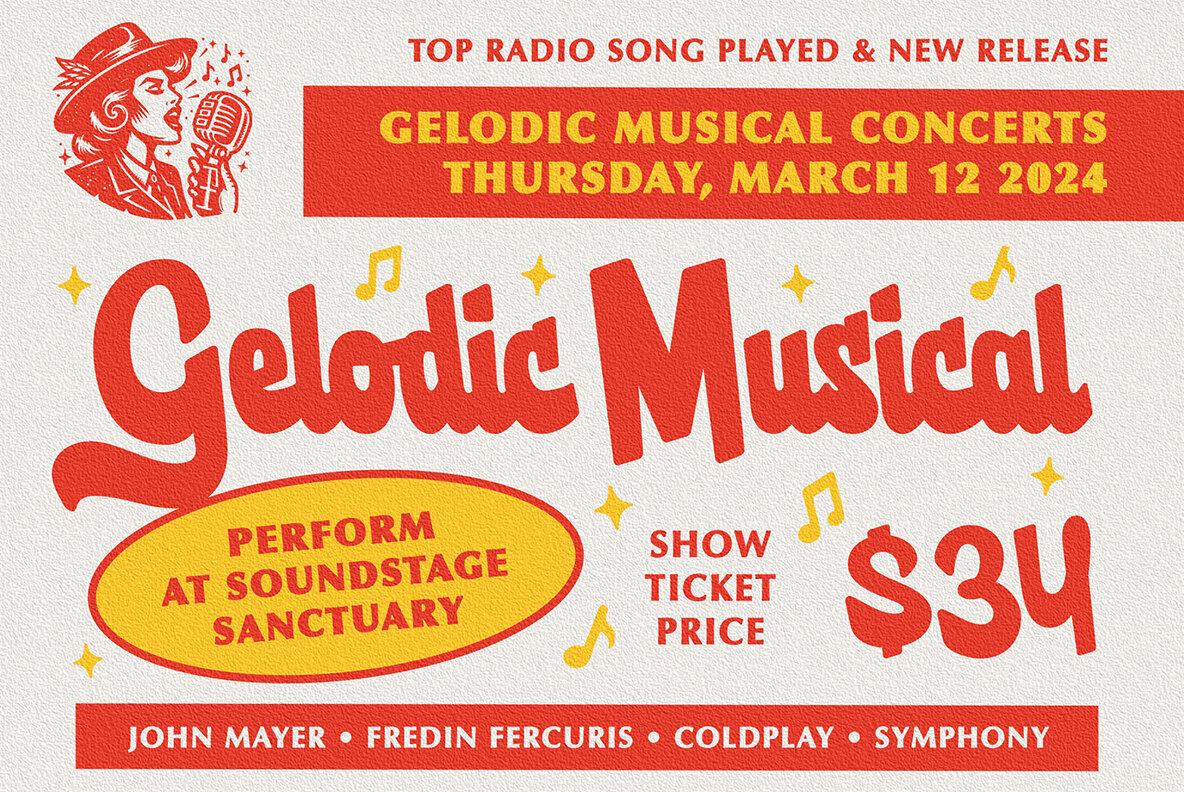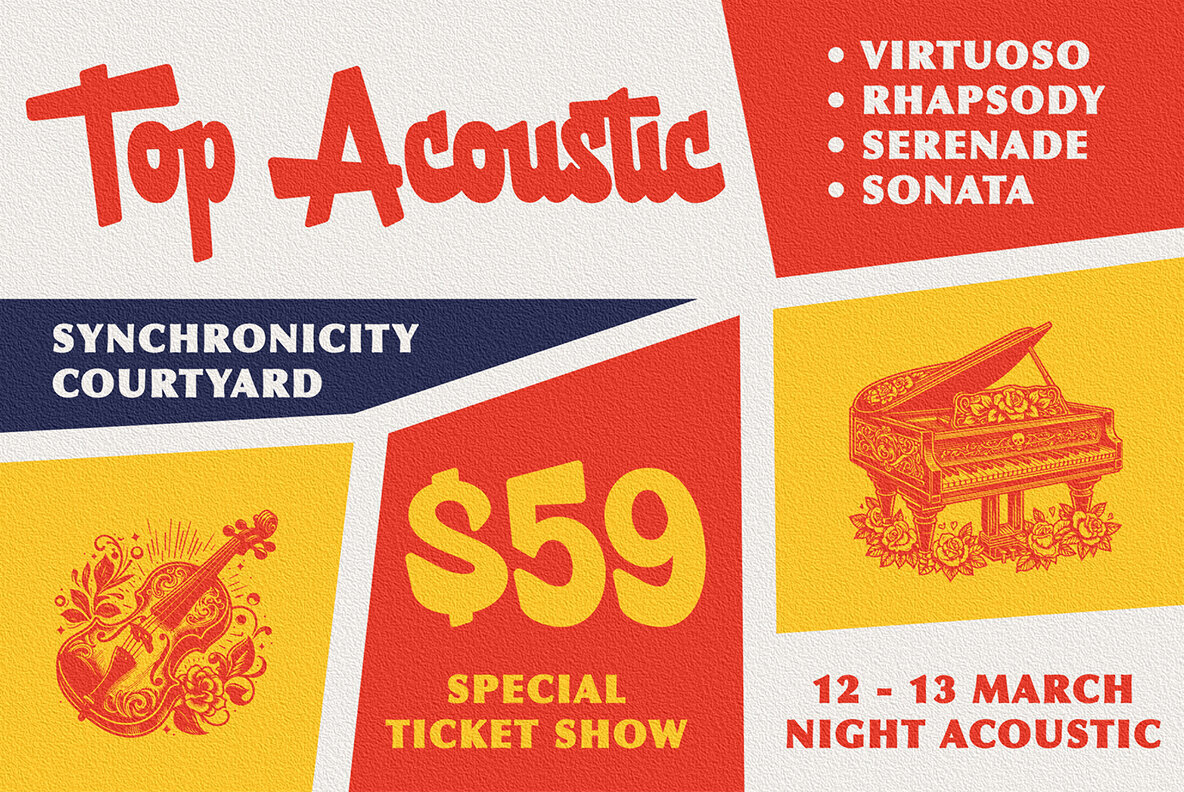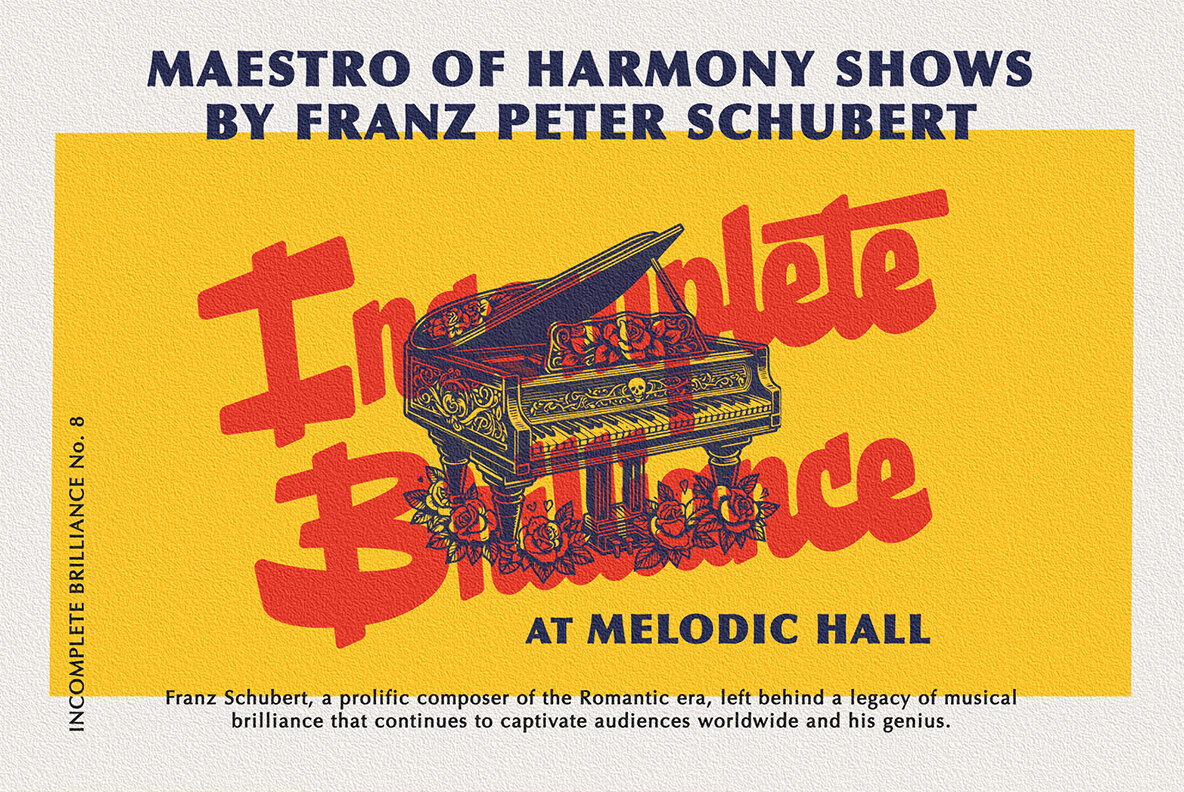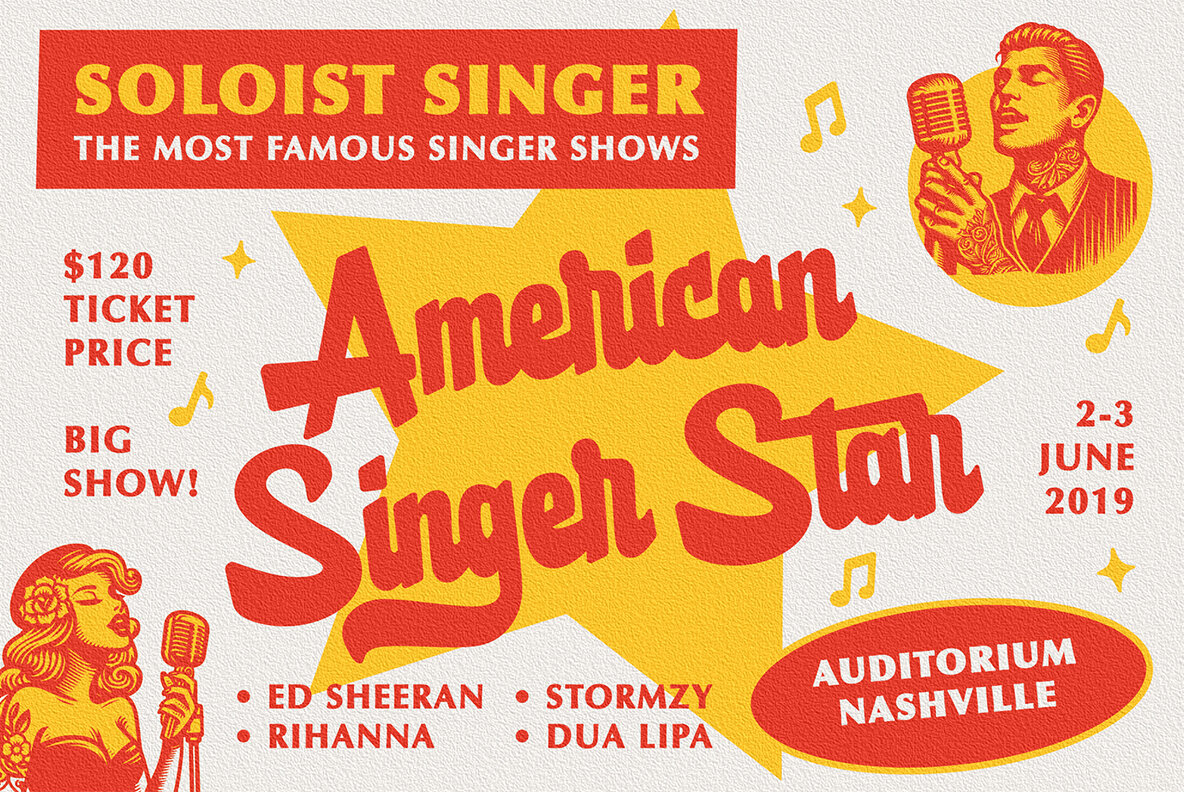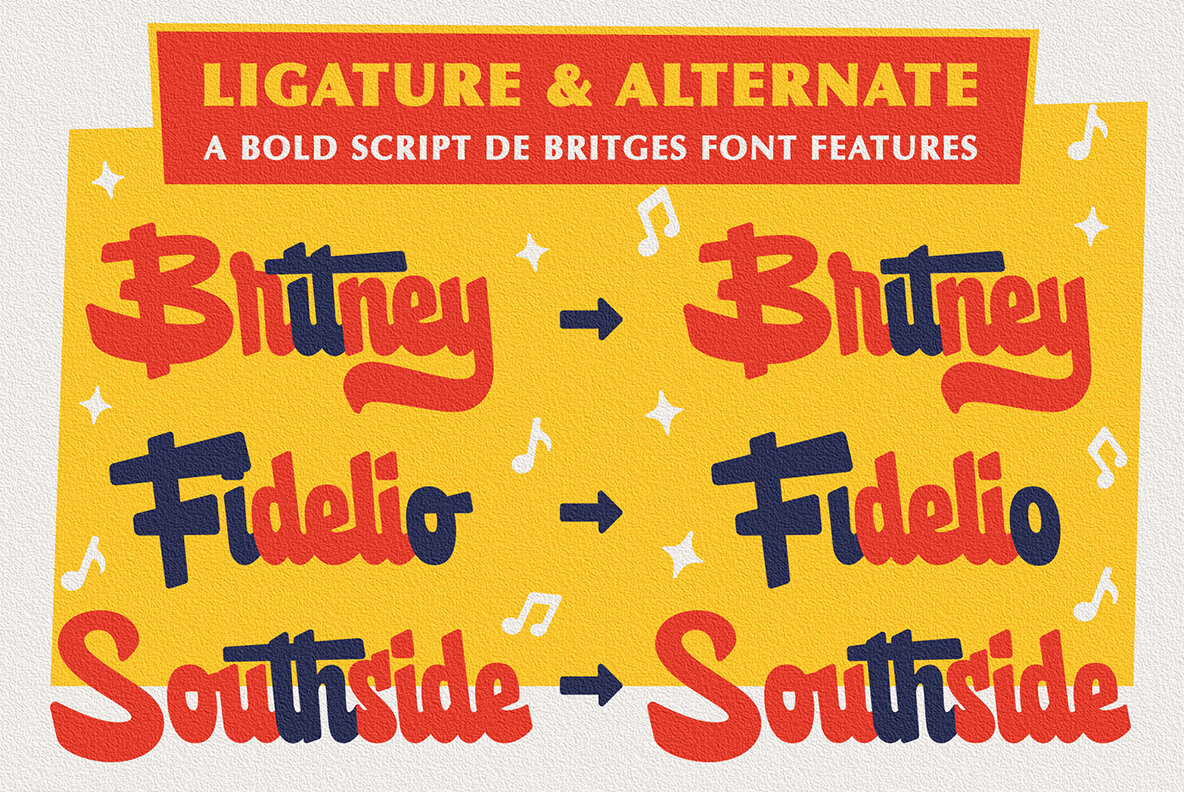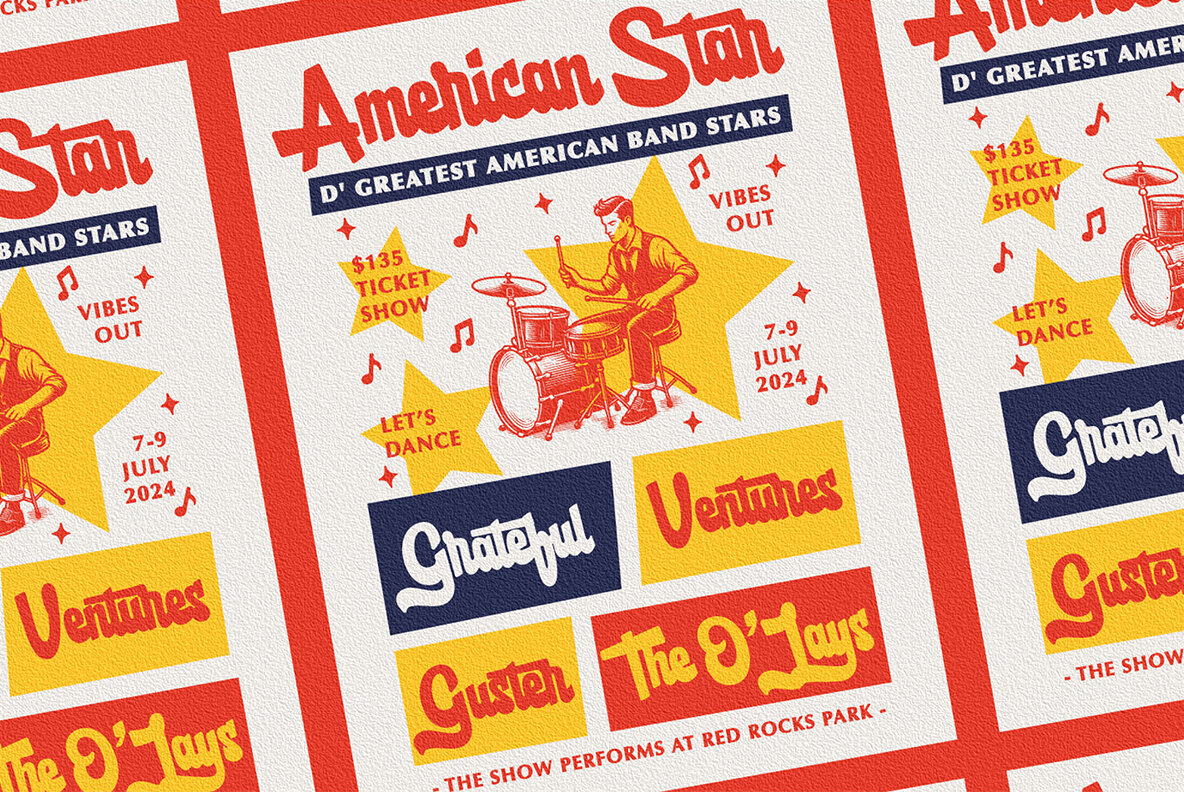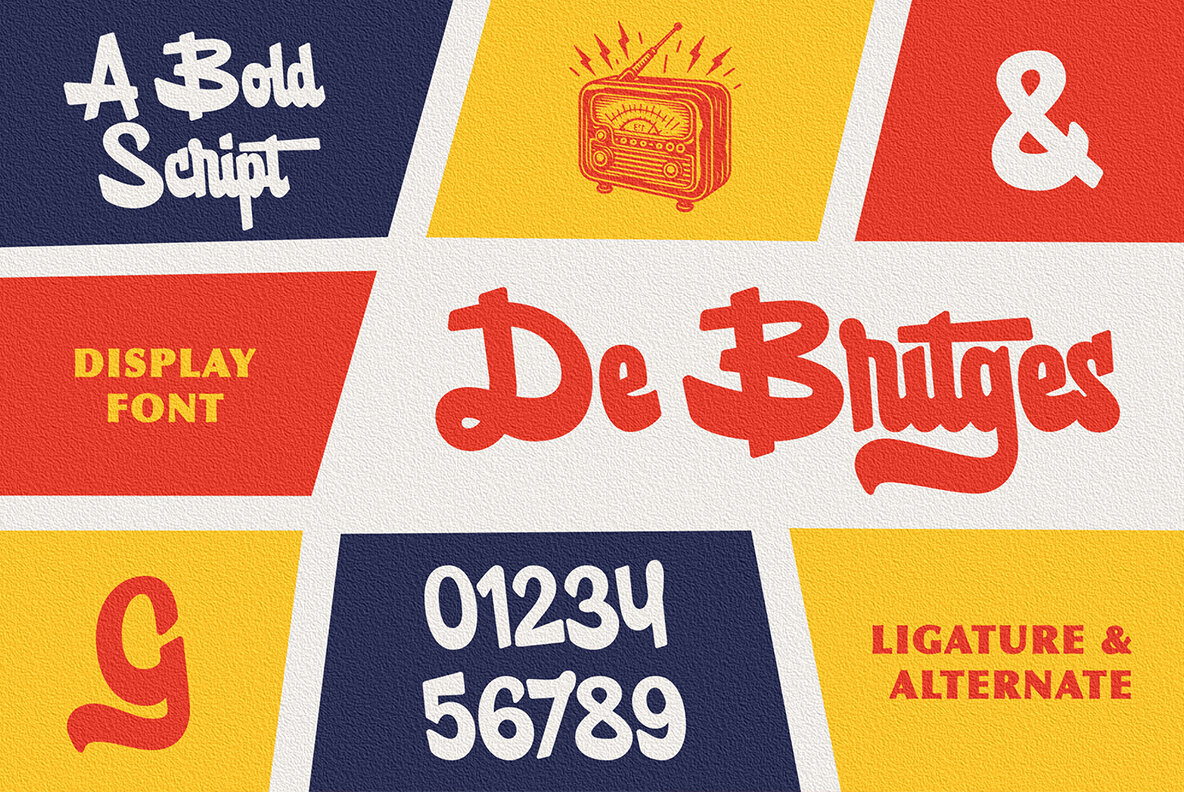
De Britges Font
De Britges
Unlock your creativity with De Britges, a bold script font crafted to enhance your music-themed designs! Complete with alternate characters and ligature features, De Britges opens up endless possibilities for logos, branding, posters, and more. Immerse yourself in the world of bold typography and make your designs shine with distinction. De Britges font features: